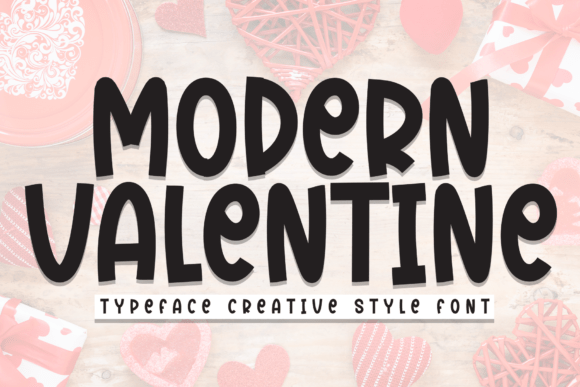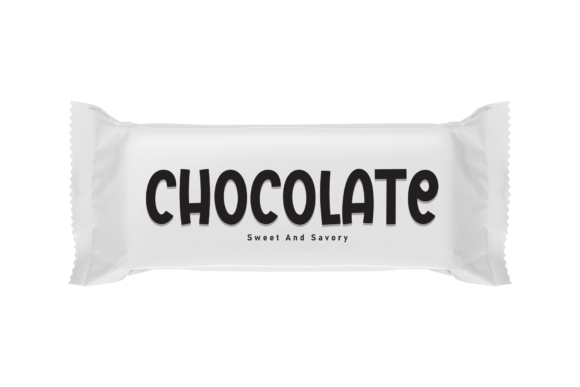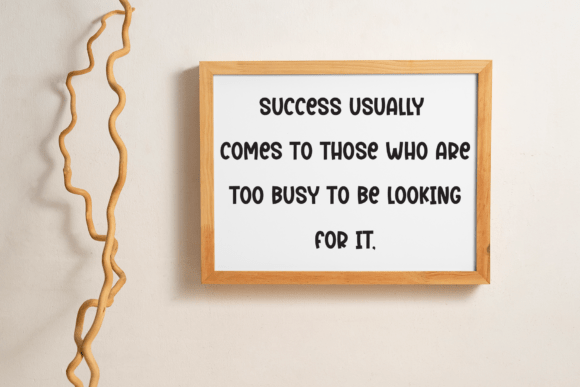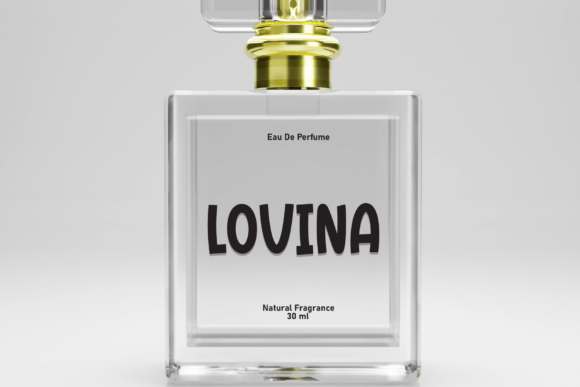
Modern Valentine Font
About the Modern Valentine Font
Discover the charm of Modern Valentine Font. This font is a perfect blend of modern aesthetics and classic appeal. Sweet and playful, Modern Valentine is a fun handwritten font designed to spread love and joy. Its chunky, rounded letters make it ideal for Valentine’s Day cards, romantic quotes, gift packaging, and creative branding. Whether you’re designing for a holiday or a heartfelt message, this font adds a modern and cozy touch to your creations.
Modern Valentine’s playful, rounded forms work best in headlines, short text blocks, and logos where its friendly personality shines. It’s excellent for branding projects targeting a young, approachable audience, and perfect for packaging designs needing a touch of whimsy. However, its chunky nature makes it less suitable for body text or UI elements requiring high readability.
Pairing it with a clean sans-serif like Open Sans for body copy provides a strong contrast and improves overall legibility. For a more sophisticated feel, consider pairing it with a delicate serif font such as Lora for secondary text or captions. Avoid pairing it with other highly decorative or script fonts, as this would create visual clutter.
The font’s core personality is undeniably friendly and approachable, conveying a sense of warmth and approachability. It’s best suited for brands and projects emphasizing joy, love, and lightheartedness.
Modern Valentine Font Example